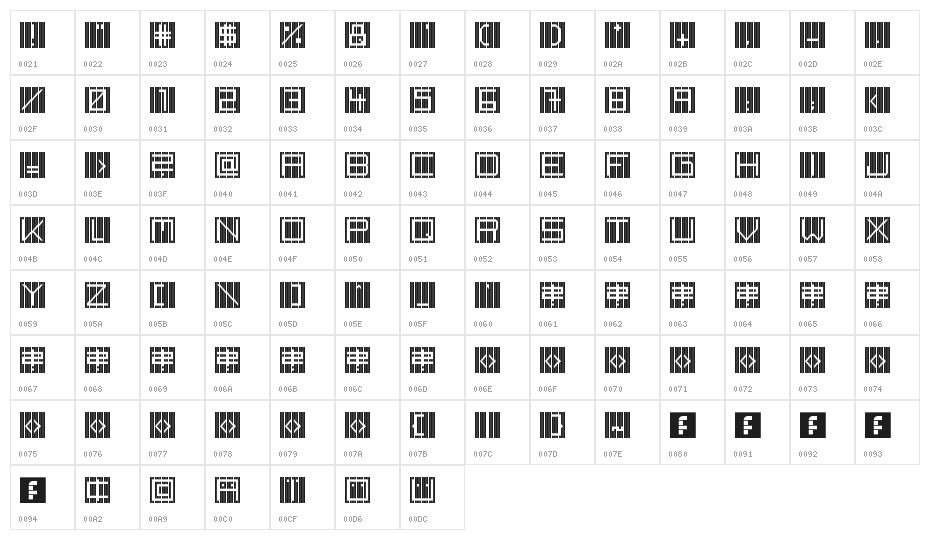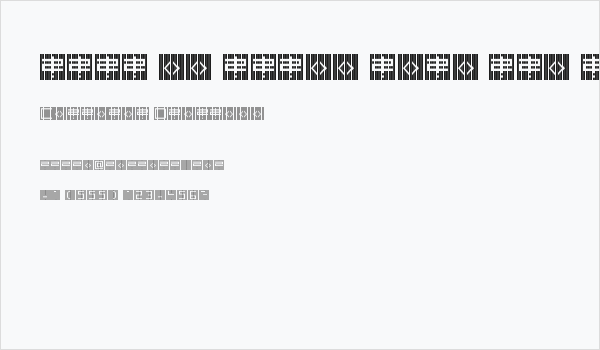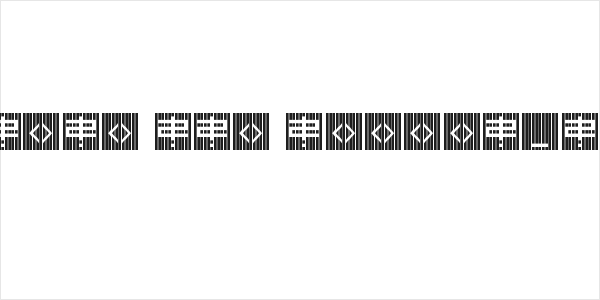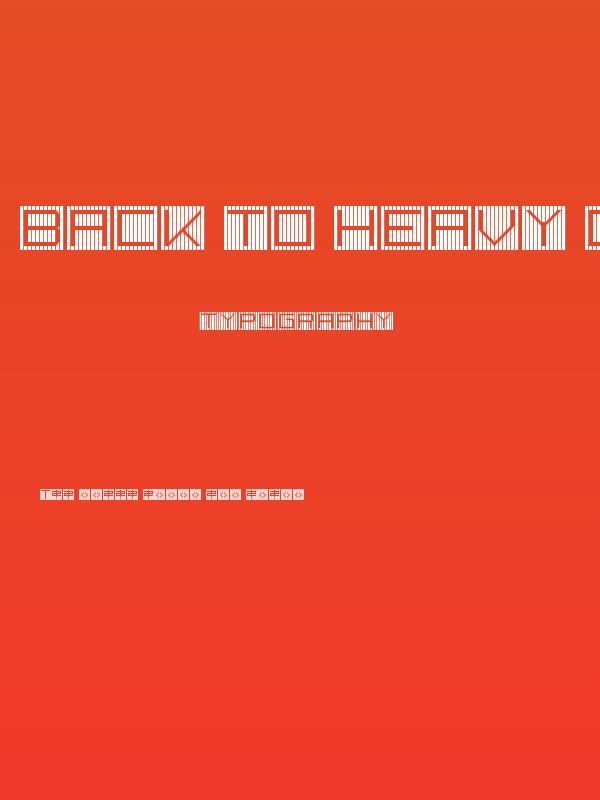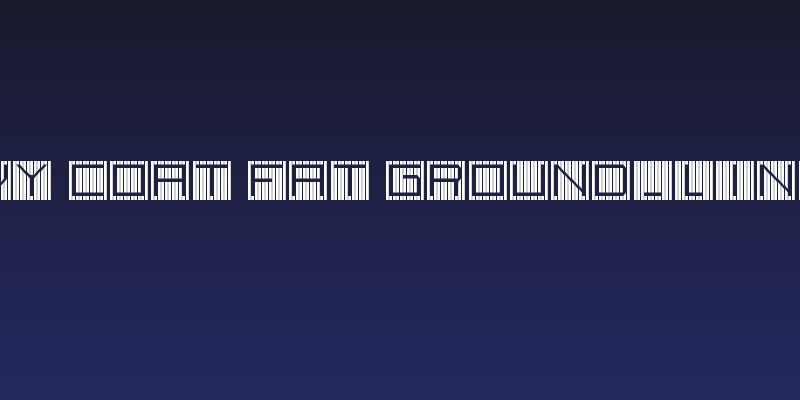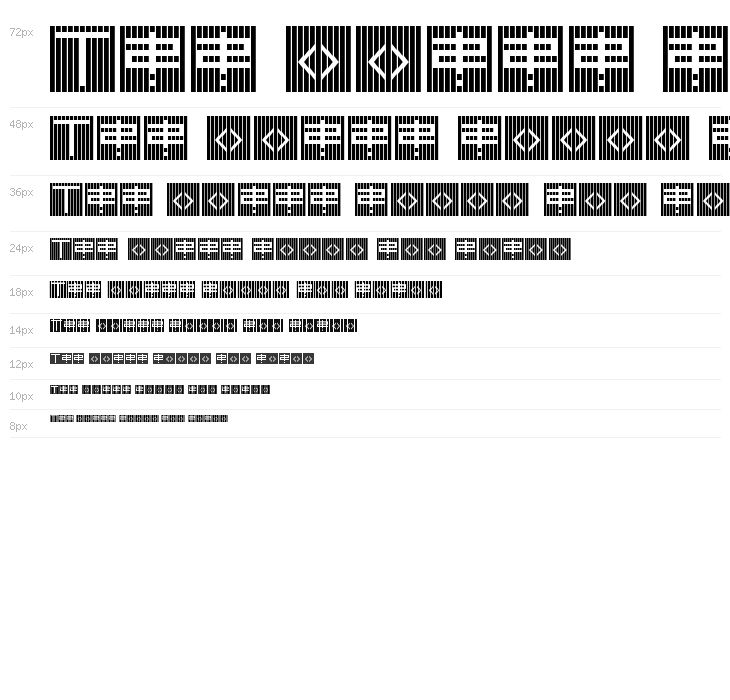
back to heavy coat fat ground_line-v Regular Font
back to heavy coat fat ground_line-v Regular Description
This font features a unique barcode-like design, where each character is composed of vertical lines that create a striking visual effect. The letters and numbers are enclosed within these lines, giving them a structured and modern appearance. The font maintains a consistent pattern across all characters, ensuring uniformity and readability despite its unconventional style. The special characters are also integrated seamlessly, maintaining the same linear aesthetic. This font is ideal for projects that require a futuristic or tech-inspired look.
| Proposed Projects | Ideal for tech branding, futuristic designs, and creative posters. |